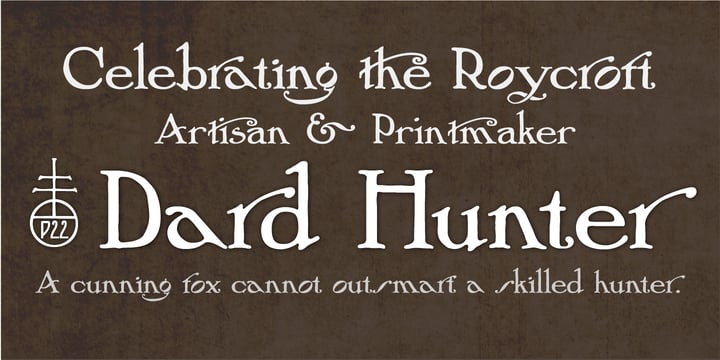
P22 Arts and Crafts
P22 Arts and Crafts™
by P22 Type Foundry
P22 Arts and Crafts Font Family was designed by Richard Kegler, Dard Hunter, James Grieshaber and published by P22 Type Foundry. P22 Arts and Crafts contains 8 styles and family package options.
About P22 Arts and Crafts Font Family
Produced in association with The Burchfield-Penney Art Center (Buffalo, New York), the Arts and Crafts family is derived from Roycroft books and periodicals designed by multi-faceted artist: Dard Hunter between 1900-1910. Dard Hunter was arguably one of the most influential graphic designers to come out of the American Arts and Crafts movement.
The main Arts and Crafts alphabet is an all-caps based on Dard Hunter's famous Viennese style lettering which has become synonymous with the Roycroft movement. It contains 5 weights with various ligatures in all weights. The family also contains two additional Dard Hunter designs, Hunter and Tall, authorized by his grandson, Dard Hunter III. The family is rounded out by 2 decorative ornament fonts to give your documents a unique and distinguished mission-style appearance.
Designers: Richard Kegler, Dard Hunter, James Grieshaber
Publisher: P22 Type Foundry
Foundry: P22 Type Foundry